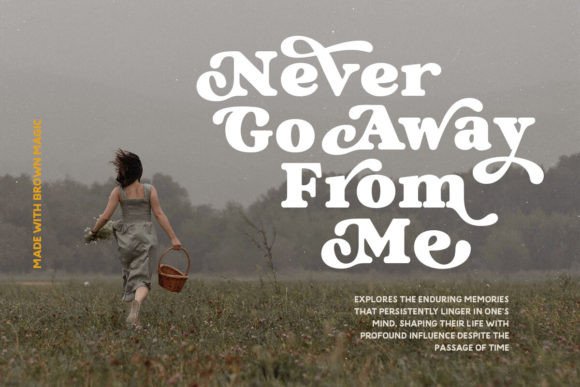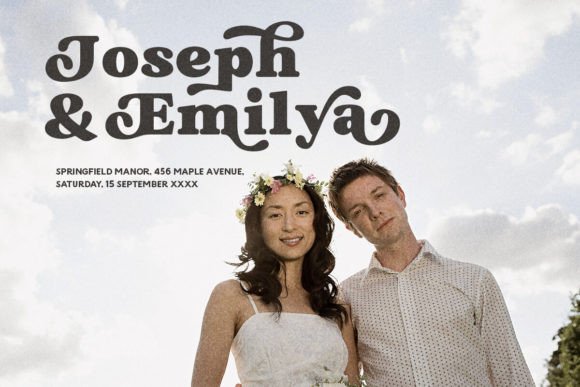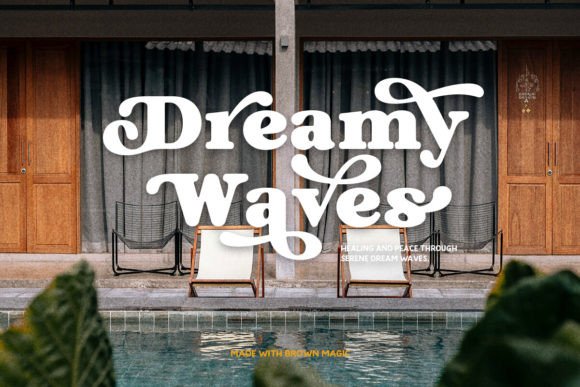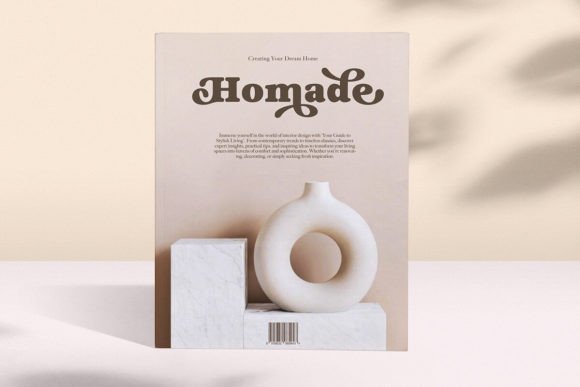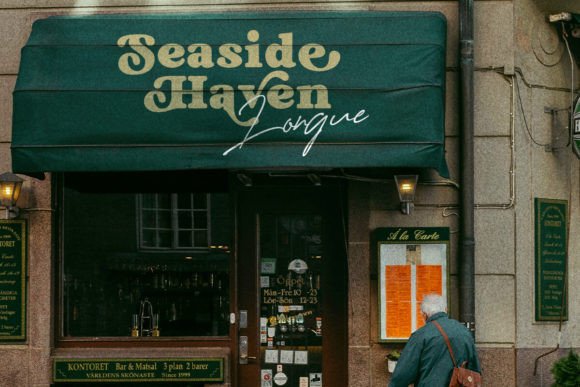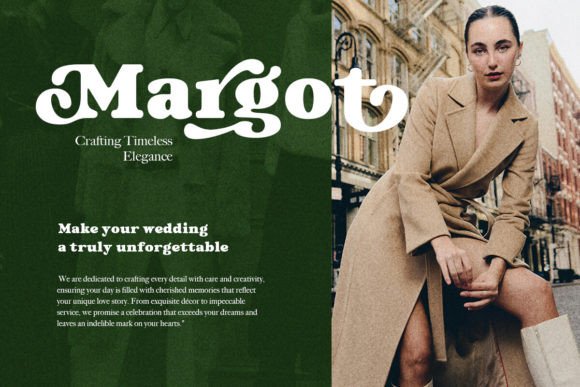
Brown Magic Font: Elevate Your Designs with a Touch of Retro Elegance
In the world of typography, a font can make or break a design. If you’re on the hunt for a typeface that exudes sophistication, nostalgia, and a dash of whimsy, look no further than the Brown Magic Font. This bold and stylish serif font is designed to transport your designs back in time, infusing them with a retro and vintage charm that’s sure to captivate your audience.
The Essence of Brown Magic Font
Brown Magic is more than just a font – it’s an experience. With its robust serif structure and elegant lines, it brings a sense of luxury and refinement to any project. Whether you’re working on posters, logotypes, quotes, or wedding invitations, this versatile font is up to the task. Its classic appeal ensures that your designs will stand the test of time, remaining relevant and stylish for years to come.
Unleash Creativity with Versatile Alternates
What sets Brown Magic apart from other serif fonts is its impressive array of alternates. With a variety of unique characters and swashes at your disposal, you can add a distinctive touch to your designs, setting them apart from the ordinary. These alternates offer endless possibilities for customization, allowing you to tailor your typography to fit the specific needs of your project.
Applications of Brown Magic Font
The versatility of Brown Magic Font makes it suitable for a wide range of applications. Here are just a few ideas to get you started:
- Posters: Create eye-catching posters that demand attention with Brown Magic’s bold and commanding presence.
- Logotypes: Develop a memorable brand identity with a custom logotype that leverages the font’s elegant and sophisticated feel.
- Quotes: Highlight meaningful words and phrases with a font that adds a touch of class and introspection.
- Wedding Invitations: Set the tone for a luxurious and unforgettable celebration with beautifully crafted wedding invitations.
Enhance Your Designs with Swashes and Alternates
The addition of swashes and stylish alternates to Brown Magic Font takes your designs to the next level. These flourishes not only add visual interest but also provide an opportunity to inject personality into your typography. Whether you’re looking to convey elegance, playfulness, or drama, the swashes and alternates in Brown Magic give you the creative freedom to achieve your vision.
Global Appeal: Multi-Language Support
In today’s globalized world, reaching a diverse audience is crucial. Brown Magic Font supports multiple languages, making it an excellent choice for designers and businesses with an international scope. This feature ensures that your message can be communicated effectively, regardless of the language or cultural background of your audience.
Brown Magic Font is a powerful tool for designers and crafters looking to imbue their projects with a sense of nostalgia, elegance, and uniqueness. Its bold and stylish serif design, combined with a variety of alternates, swashes, and multi-language support, makes it an incredibly versatile choice. Whether you’re working on a commercial project or a personal craft, Brown Magic Font is sure to elevate your designs and leave a lasting impression on your audience.
Get Ready to Cast a Spell with Brown Magic
Ready to add a touch of magic to your designs? With Brown Magic Font, you have the perfect blend of retro charm, versatility, and sophistication at your fingertips. Explore the possibilities of this exceptional font and discover how it can transform your typography and elevate your creative projects.